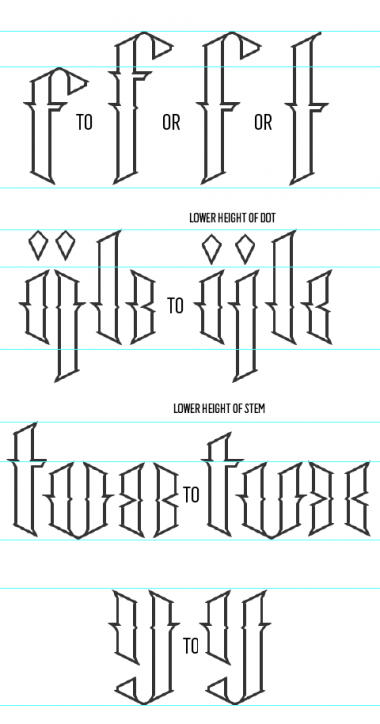
• Based on some drawings I did a while back. I'll hopefully be adding new characters all the time to make a more comprehensive font. Any feedback will be greatly received, especially on the lower case 'k', 'x' and 'z'.
I like the general idea, and I'm waiting for the rest of the glyphs. BTW, you must increase the space between words, IMHO.
A great start - looking forward to seeing more.
I think that the descender on the z might fit better into the font if it were as long and with the 'serif' kind of tail as the y.
The distance between j and the preceeding letter (when in a word) looks too large, try moving the j more to the blue line on the left.
Very nice. :) I agree about the j: you can negative-space characters by the way; i.e., in the case of j, you can have the stem flush with the left marker. The same applies to the t: you can set the spacing after the bar t better balance the negative space between characters.
Great start and looking forward to more glyphs. I agree with the feedback and would also suggest to sit t on the baseline.
A really great start, but for me, there are a number of inconsistencies. Although sometimes breaking your own rules can be part of creating the right look.
Here are my suggestions:-
The 'f' has three possibilities. The best one will shine through, when you do some trial tests.
i & j. I would lower the dots slightly, It looks less regimented then, and is usually the norm on most fonts. I would also flip the top half of the 'j' horizontally. It is more consistence with the rest of your design then. The tops of i and j are usually the same,
'k' - flip the right side top and bottom horizontally, otherwise this simply doesn't work.
't' - I would lower the stem, otherwise it looks a little tall.
'u' - although this technically breaks a rule, it should be somewhat similar to the 'w', so I would flip the top of the right vertical horizontally.
'x' - again breaks a rule, but 'x' always does. Needs totally flipping outward just like the right side of the 'k'.
'y' - the top of the 'y' should be consistent with 'u' and first half of 'w' (sometimes), so this needs flipping horizontally as well.
You've also bridged/connected a,c,e,m,n,o,u,v,w. I would suggest you might want to think about bridging the rest, as 'h' and 'n' should be very similar.
I personally would join them for better readability, and possibly add the little serif that you have done on the 'a', to the b,d,g,m,n,p,q,r and u.
Wait, wouldn't the x then have the same issue as the j (inconsistency of the tops of the letters)?
Yes, but as I said above "'x' - again breaks a rule, but 'x' always does."